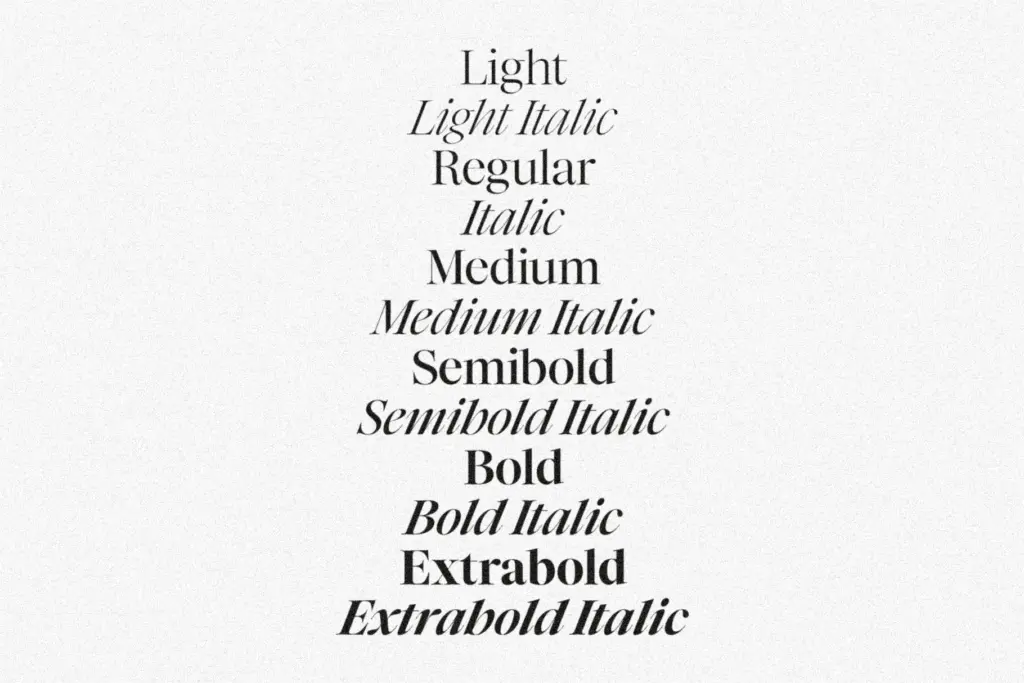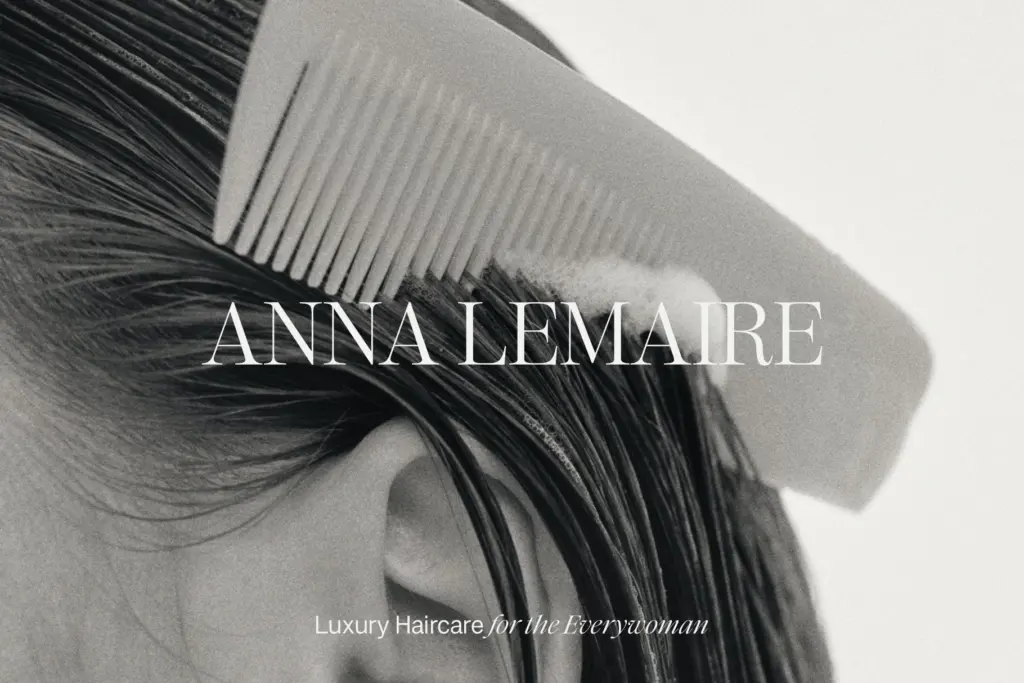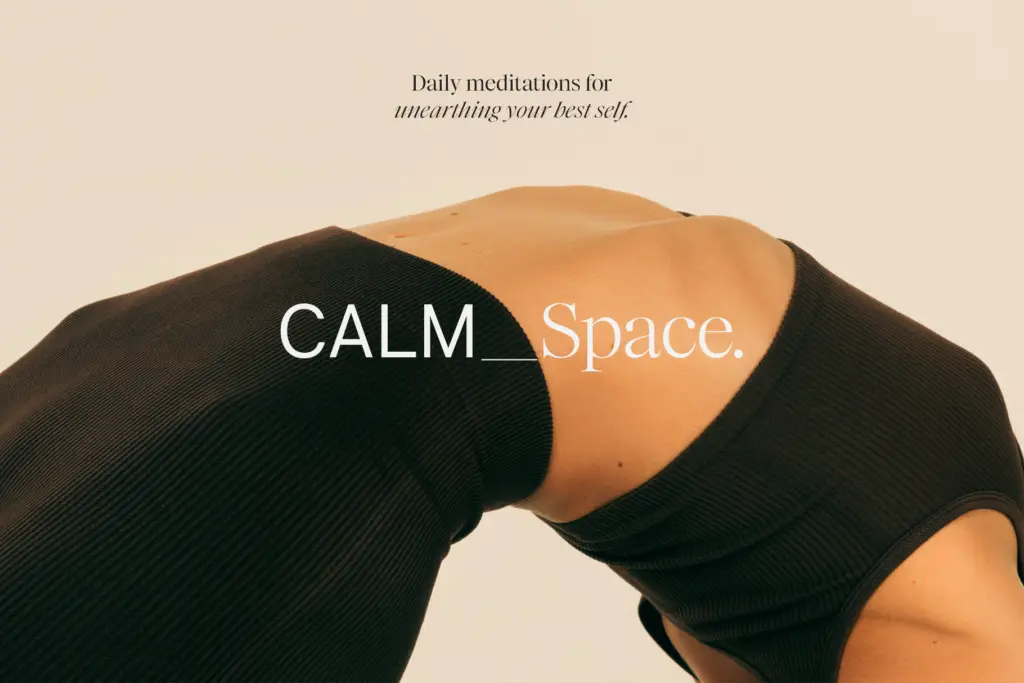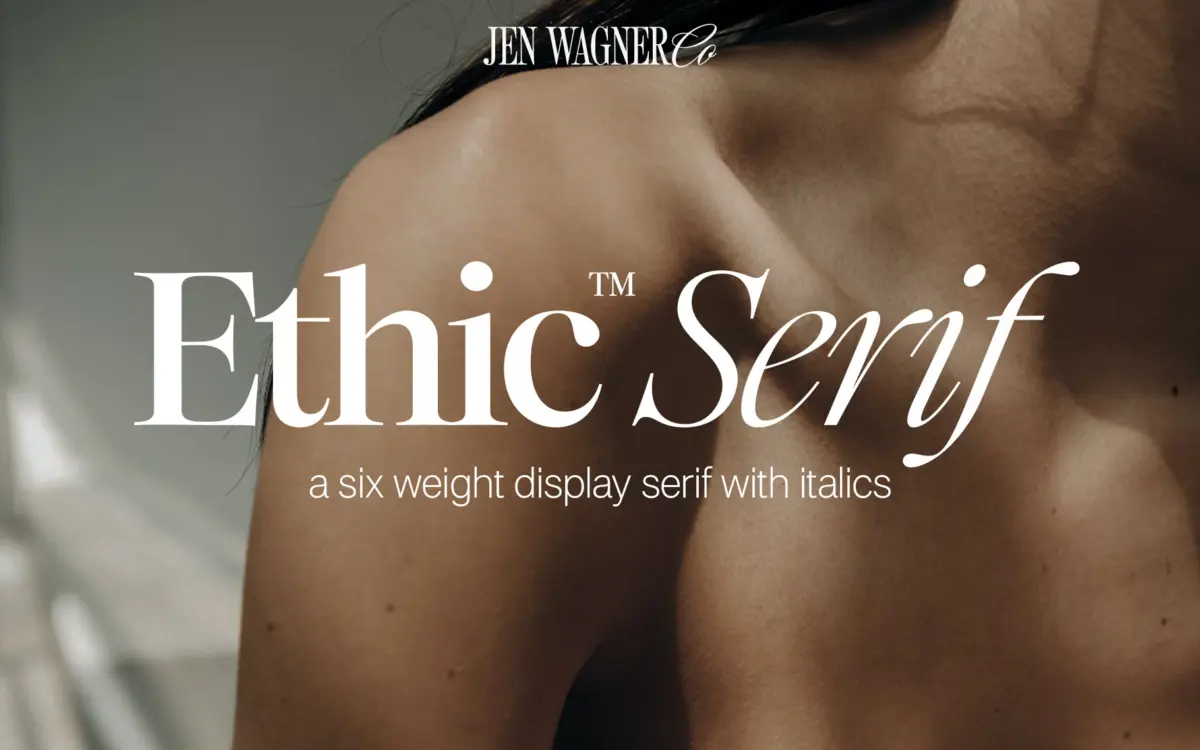
Ethic Serif: a six-weight display serif for headlines and quotes
Ethic Serif is a high-contrast serif built for scale rather than for reading in bulk. The thick-thin transitions are pronounced, the curves have a slightly organic, hand-finished quality rather than the mechanical precision of a modern didone, and the overall effect sits somewhere between classic editorial serif and contemporary luxury branding face. It reads as confident and a little theatrical, which is the point: this is a display serif that wants to be big.
The italics are the more distinctive half of the family. They’re sharper and more angular than you’d expect from the roman’s rounder curves, giving the family two distinct moods rather than a simple slant of the upright. That contrast between upright and italic can work well when you need a quote or callout to feel like a deliberate shift in register, but it also means the two aren’t always drawn from the same visual logic — designers who like their italics to feel like a natural extension of the roman may find the jump a bit abrupt.
Six weights — Light through Extrabold — each with a matching italic, twelve fonts in total. That’s a reasonable spread for a display family, enough to build a hierarchy across a poster or a brand system without reaching for a second typeface. Numbers, punctuation, and foreign language support are included, which covers the basics for setting quotes, pull-text, and short editorial copy in several European languages.
What’s notably absent from the brief is any mention of alternates, ligatures, or swash characters — the kind of extras that serif display families in this luxury-branding space often lean on to add personality to a logotype or a title page. If they exist, they’re not part of the story here; what you get is a solid, well-populated weight range rather than a feature-stuffed OpenType set. That’s not a flaw so much as a signal about what the font is trying to be: a dependable big-text serif, not a swash-laden display specimen.
This is a headline and quote typeface first. At large sizes — pull quotes, editorial spreads, packaging headers, title cards — the contrast and organic curves have room to breathe and the sharp italics earn their keep as emphasis. It’s a natural fit for luxury or classic-leaning branding: perfume, hospitality, boutique retail, anything reaching for an established, slightly old-world feel rather than a stripped-back modern one.
Push it down to body-copy sizes and the high contrast starts to work against it — thin strokes thin out further, and the personality that reads as elegant at 60pt can read as fragile at 10pt. Treat the Light and Regular weights as headline options rather than text options, and pair the family with a plainer sans or a lower-contrast serif for any long-form reading. Used within its lane — big type, short text, quotes, logotypes — Ethic Serif does its job cleanly and without fuss.
- Six weights plus italics give real headline hierarchy without needing a second family
- Sharp, distinct italics that read as a deliberate stylistic shift rather than a slanted roman
- Organic curves give it warmth that pure didones often lack
- High contrast makes the lighter weights fragile at small or body-copy sizes
- No mention of alternates, ligatures, or swashes that similar luxury display serifs often include
Ethic Serif is a confident, high-contrast display serif that earns its keep on headlines, quotes, and luxury-leaning branding. It's not built for body copy, and the feature set is basic compared to other display serifs in this space, but within its intended lane it's a dependable, well-drawn option.